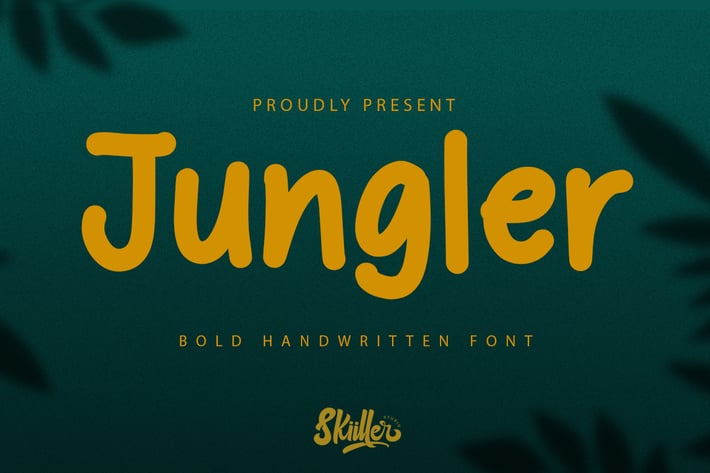
Jungler - HAndwritten Font
Jungler a handwritten font. This font will very suitable for your fun project like children party, cute quotes, or any cute fun related projects. Grab it now !